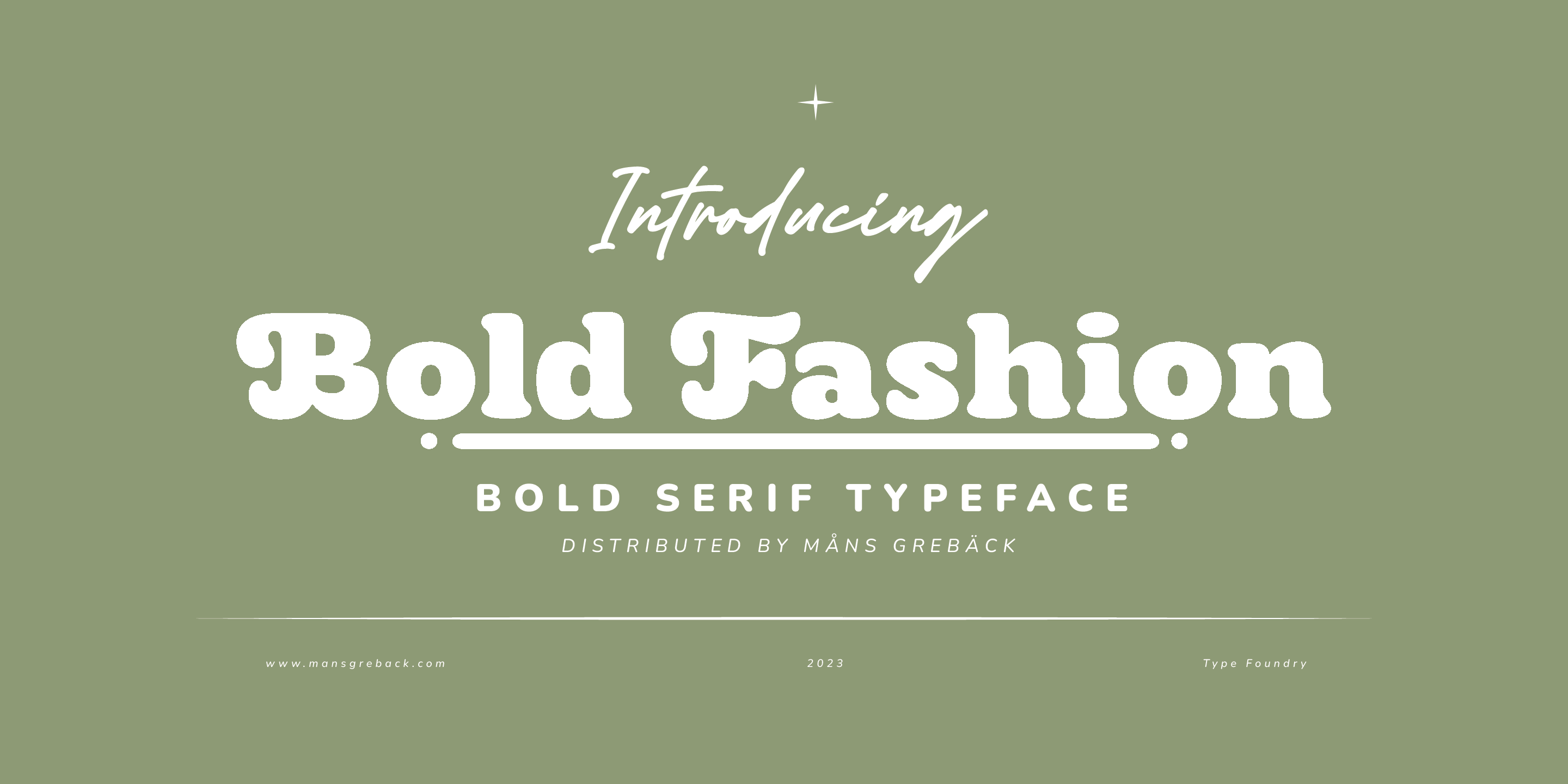
Bold Fashion Font excels across high-impact design applications including striking fashion logos, luxury brand identity, dramatic magazine headlines, premium packaging design, bold advertising campaigns, runway show materials, cosmetic brand communications, jewelry advertisements, high-end retail signage, fashion week graphics, editorial layouts, and powerful marketing materials. This commanding typeface delivers exceptional visual impact in both digital and print environments, making it the perfect choice for fashion brands and designers who need to convey confidence, luxury, and cutting-edge style in their visual communications.
What makes Bold Fashion Font Free Download truly exciting is its commanding presence that combines fashion-forward aesthetics with powerful visual impact to create unforgettable brand experiences. The font features dramatically crafted letterforms with strong geometric proportions, sophisticated details, and bold character weights that instantly capture attention while maintaining exceptional elegance and readability. Its fashion-centric design incorporates contemporary styling influences and refined spacing that make it ideal for luxury applications and high-fashion communications. The font's striking appearance transforms ordinary content into powerful visual statements that resonate with style-conscious audiences seeking premium and authoritative design solutions.
The Bold Fashion Font family typically includes comprehensive weight variations ranging from medium to ultra-bold, often accompanied by corresponding italic styles and potential condensed or extended versions that enhance its dramatic appeal. Each weight maintains the core fashion-forward design philosophy while offering different levels of visual dominance and typographic hierarchy. The extensive character set supports multiple languages and includes essential punctuation marks, numerals, currency symbols, and special characters, ensuring designers have complete flexibility to create sophisticated high-fashion typographic systems that maintain visual consistency across luxury brand communications and international fashion markets.
Whether you're developing luxury fashion branding, creating dramatic editorial content, or designing premium marketing campaigns, Bold Fashion Font Free Download provides the typographic authority necessary for producing memorable and influential designs. Its commanding character and fashion-focused versatility make it an invaluable addition to any designer's font collection, offering unlimited creative possibilities while maintaining the highest standards of luxury appeal, visual impact, and sophisticated style in today's competitive fashion and luxury design landscape.